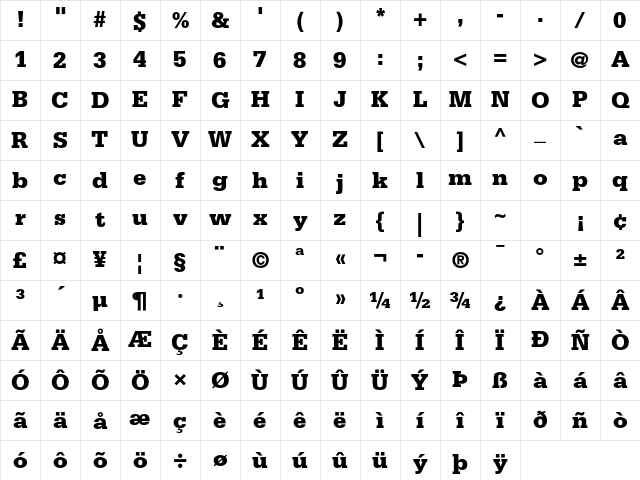
Serifa Std 75 Black
Style: 75 Black
Serifa Std Family
Design Context for Serifa Std
Serifa Std carries the refined structure of traditional serif typography, with bracketed terminals and considered proportions that communicate credibility and craft.
Pro Tip: Use Serifa Std for editorial body copy and considered headline work. Pair with a neutral sans for UI elements or captions to create a classic hierarchy.